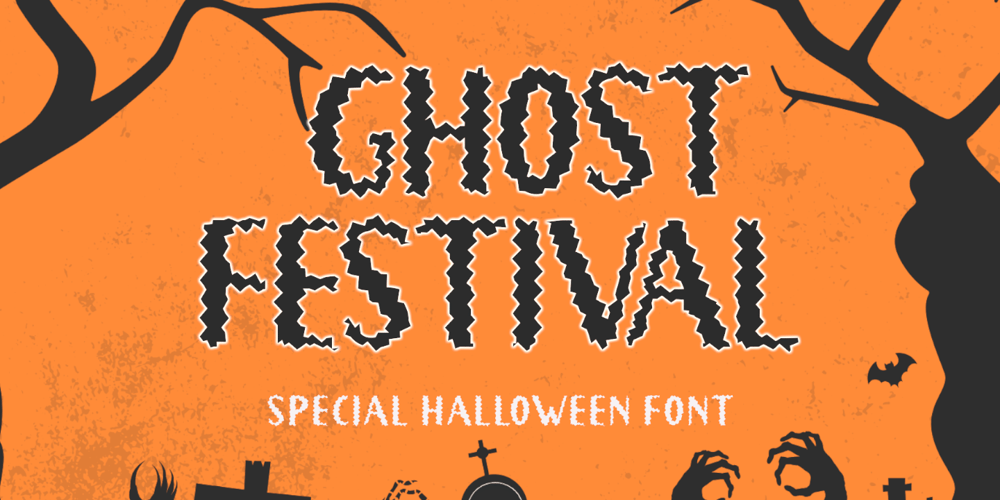
Ghost Festival Font Family was designed by Isroni Yoga Prasetya and published by Yoga Letter. Ghost Festival contains 1 styles and family package options. “Ghost Festival” is a special Halloween font. This font has a jagged character and is perfect for Halloween. It is very easy to use because it has been specially designed. This font is equipped with uppercase, lowercase, numerals, punctuations, and multilingual support.